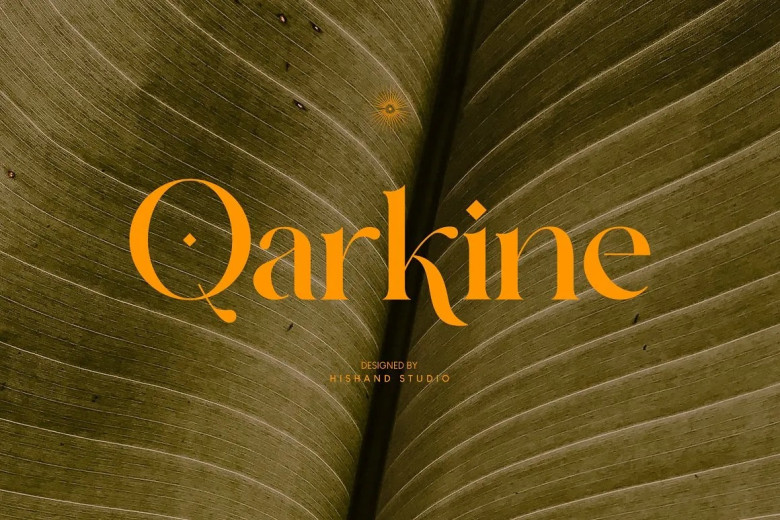
Qarkine Font
Experience the incomparable beauty of Qarkine the font that sets the standard for elegance and class in typography. With its simple but stylish design, Qarkine is the perfect combination of traditional and modern elements to bring out the best of any design concepts suitable for various projects.
The refined elegance and noble appearance of this font is a perfect match to luxury branding and promotional materials. Qarkine’s classic, timeless style suggests the beauty and elegance of its spatially arranged letters in their purest form for this century-long theme that will never go out of date-like original household furnishings for city dwellers who want to stand ahead at work or play honestly.
Whether you’re launching a high-end fashion brand, luxury lifestyle magazine, or would like to add extra exclusivity to your design projects, Qarkine is the perfect font for the job.
Qarkine Serif Font